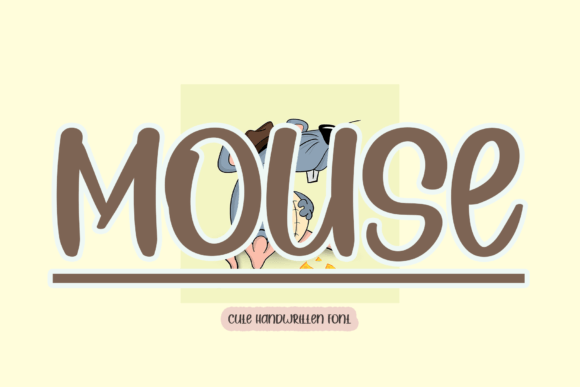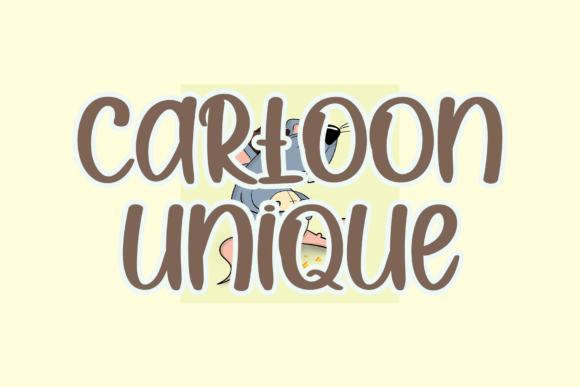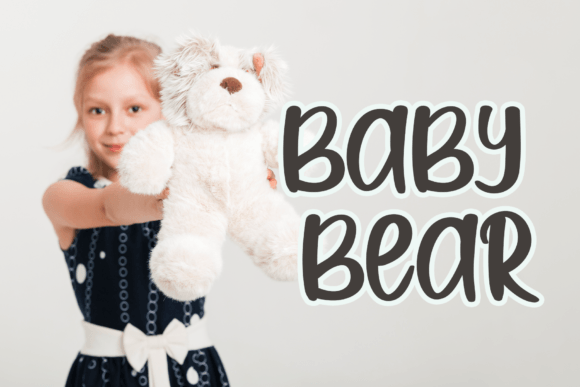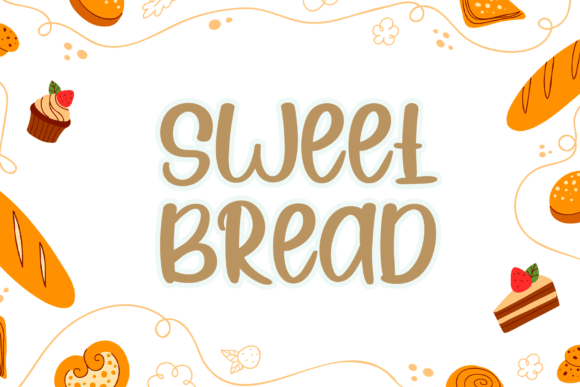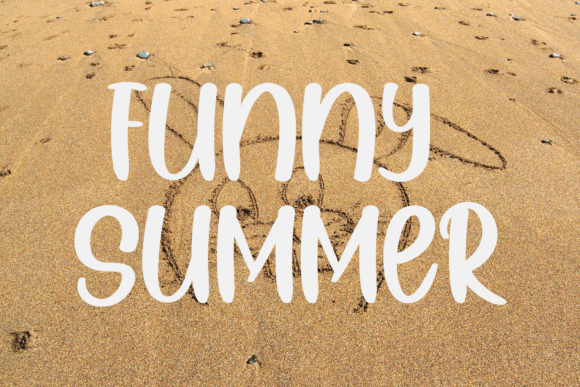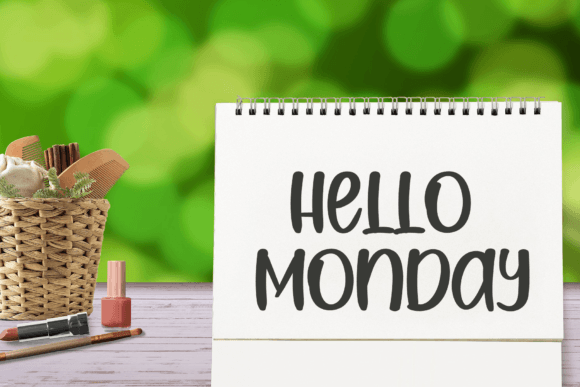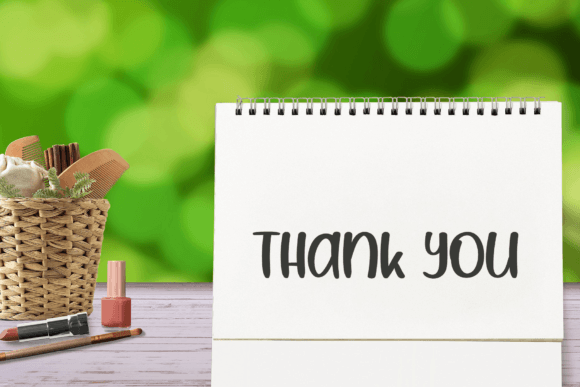
Mouse Font
About Mouse Font
“Mouse” is a beautiful handwritten font that exudes a dainty and joyful charm. This font is an excellent choice for various design purposes, particularly when you want to infuse a romantic and personalized touch into your projects. It lends itself particularly well to writing wedding invitations and cards, creating a warm and intimate atmosphere.
Here are some key features and applications of the “Mouse” font:
1. **Wedding Invitations:** “Mouse” adds a delightful and romantic flair to wedding invitations. Its handwritten style imparts a sense of personalization and warmth, making it ideal for setting the tone for a special day.
2. **Cards:** Whether you’re designing greeting cards, thank-you notes, or special occasion cards, “Mouse” can help convey heartfelt messages with its dainty and joyful aesthetic.
3. **Personalized Designs:** The font’s handwritten and romantic qualities make it suitable for creating personalized designs for various occasions, including anniversaries, birthdays, and other celebrations.
4. **Digital Graphics:** “Mouse” can also be used for digital graphics, including social media posts, blog headers, and website elements, to add a touch of handmade charm to your online presence.
5. **Crafts:** If you’re into DIY projects or crafts, “Mouse” can be a lovely choice for adding hand-lettered text to your creations, such as scrapbooks, gift tags, and more.
In summary, “Mouse” is a versatile handwritten font that brings a sense of dainty joy to your design projects. Its romantic and personalized touch makes it a valuable tool for adding warmth and charm to a variety of occasions and creative endeavors.